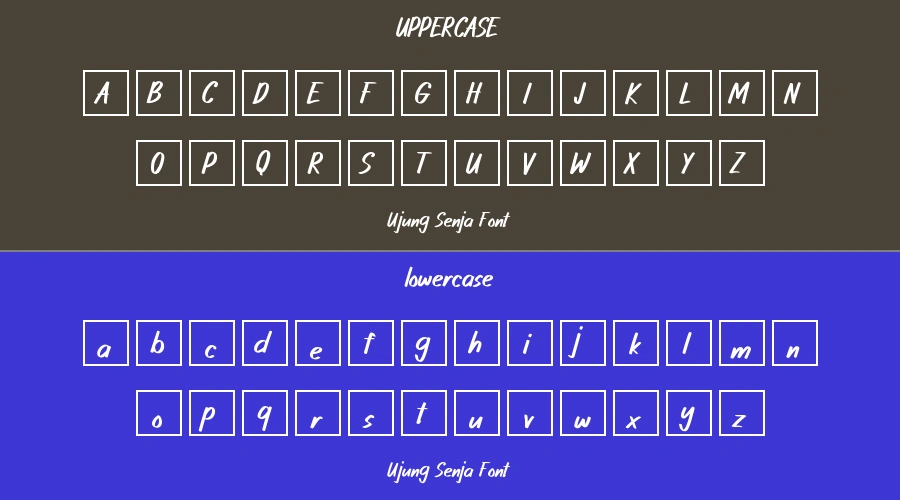
About Ujung Senja Font
Ujung Senja Font represents a sophisticated approach to type design, balancing architectural precision with adaptability. Perfect for event branding, this font family showcases impressive functionality and sophistication throughout its character set. Designers appreciate its versatility and reliability.
Designers will appreciate nuanced touches including calculated proportions and currency signs, adding sophistication to any project. These features become apparent in section headers, where headline impact matters most. The careful treatment of descender depth and character ensures optimal performance.